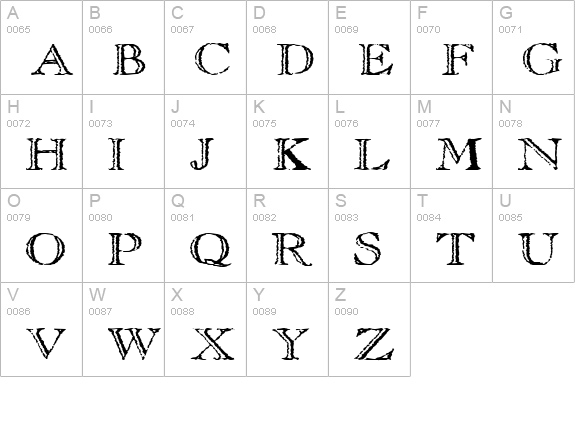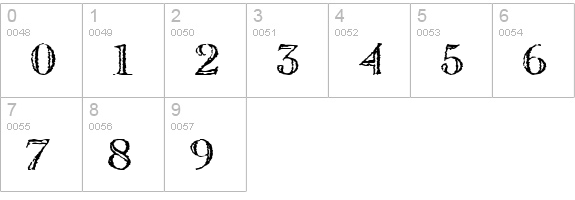
Old Copperfield Font Details
The Old Copperfield font is a timeless and elegant typeface that exudes a sense of vintage charm and sophistication. Its intricate details and classic design make it a perfect choice for projects that require a touch of nostalgia and elegance. The graceful curves and unique flourishes of Old Copperfield add a sense of artistry and refinement to any text, making it ideal for invitations, branding, and other creative endeavors. And the best part? Old Copperfield is available for free download at FontsMarket.com! This means that you can easily add this beautiful font to your collection without any cost, allowing you to enhance your designs with its timeless appeal. Don't miss out on the opportunity to elevate your projects with the Old Copperfield font - download it today and let its classic beauty inspire your creativity.